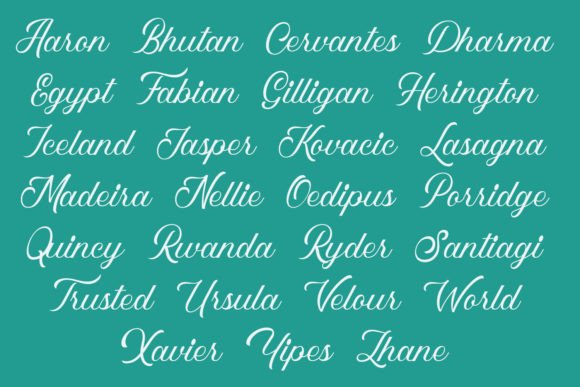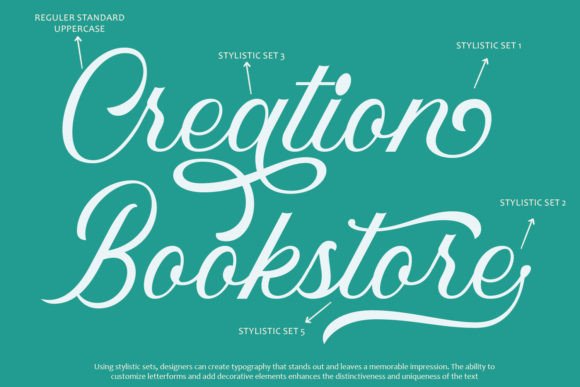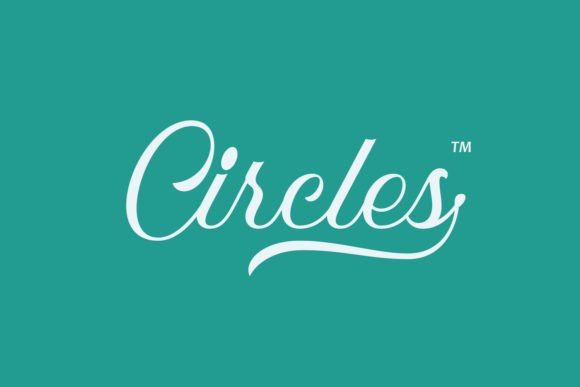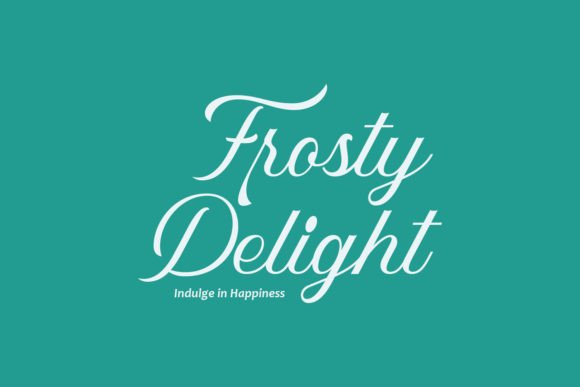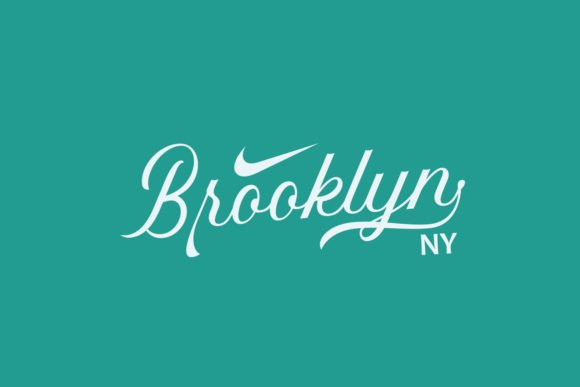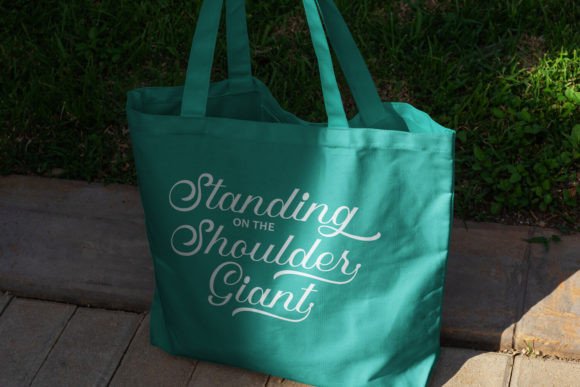
Introducing Frontman Font: The Epitome of Modern Script Elegance
In the realm of typography, a font can make or break the visual identity of a design project. For designers and crafters seeking a script font that embodies both simplicity and elegance, Frontman Font emerges as a stellar choice. This clean and modern script font is meticulously designed to offer versatility and readability, making it an ideal companion for a wide array of design endeavors, from branding and advertising to social media graphics and beyond.
The Design Philosophy Behind Frontman Font
Frontman Font is the brainchild of designers who aimed to bridge the gap between modern simplicity and classic elegance. The creation of Frontman was inspired by the need for a font that could seamlessly blend into various design contexts, offering a fresh yet timeless appeal. Each letterform in Frontman is crafted with precision, ensuring that the font maintains its clean and uncluttered appearance, even at smaller sizes.
Key Features of Frontman Font
- Clean and Modern Aesthetic: Frontman boasts a sleek design that lends itself well to contemporary projects while maintaining a level of sophistication.
- Versatility: Whether it’s for a luxury brand, a creative startup, or a personal project, Frontman adapts effortlessly, making it a highly versatile choice.
- Ease of Readability: One of the standout features of Frontman is its exceptional readability. This ensures that your message is conveyed clearly, regardless of the medium.
- Elegant Script Style: The script style of Frontman adds a touch of elegance and refinement, perfect for projects that require a bit of flair.
Applications of Frontman Font
The versatility of Frontman Font makes it suitable for a multitude of applications. Here are some of the areas where Frontman truly shines:
- Branding and Logotypes: Create a lasting impression with a logo or brand name that exudes modernity and class.
- Social Media Graphics: Stand out on social media platforms with Frontman’s clean and elegant appearance, perfect for posts, stories, and banners.
- Advertising and Marketing Materials: From flyers to billboards, Frontman ensures your message is delivered with style and sophistication.
- Packaging Design: Elevate your product packaging with a font that communicates luxury and attention to detail.
- Web Design: Enhance the user experience on your website with a font that is both modern and easy to read.
Why Choose Frontman Font?
In a sea of fonts, Frontman stands out for several reasons:
- Unique yet Legible: Frontman strikes a perfect balance between uniqueness and legibility, making it a rare find in the world of script fonts.
- Highly Adaptable: Its clean and modern design allows it to fit into various design themes without looking out of place.
- Designer’s Delight: For designers, Frontman offers a hassle-free experience with its easy readability and versatile application.
Frontman Font is more than just a script font; it’s a design statement that speaks of modern elegance and versatility. Whether you’re a designer working on a client’s project or a crafter looking for the perfect typography for your brand, Frontman Font is an excellent choice. Its ability to blend simplicity with elegance, coupled with its readability and adaptability, makes it a valuable asset in any design toolkit. Embrace Frontman Font for your next project and experience the difference it can make in elevating your design to new heights of sophistication and style.